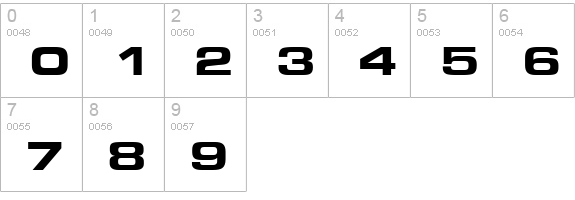
PFEuroset Bold Unicode is a strong, high-contrast variant in the PFEuroset typeface family \xE2\x80\x94 well suited to headlines, attention-grabbing titles, and strong calls-to-action.
PFEuroset Bold Unicode font is a visually striking and versatile typeface that combines modern aesthetics with a touch of elegance. Its bold and confident design makes it perfect for headlines, titles, and other display purposes. With its clean lines and sharp edges, this font exudes a sense of professionalism and sophistication. What sets PFEuroset Bold Unicode font apart is that it is available for free download at FontsMarket.com. This means that you can easily access and use this high-quality font for your personal and commercial projects without any cost. Whether you're designing a website, creating a poster, or working on a branding project, PFEuroset Bold Unicode font is sure to make a bold statement and leave a lasting impression.